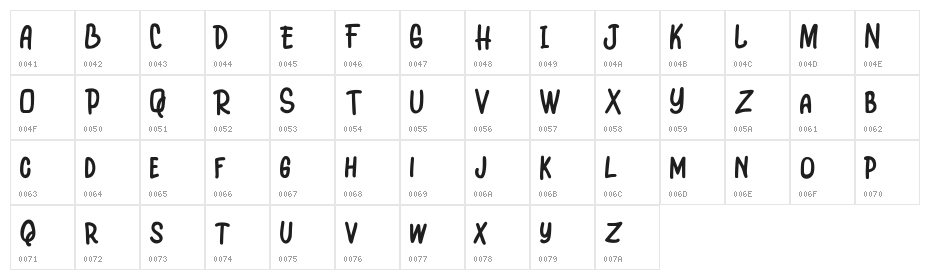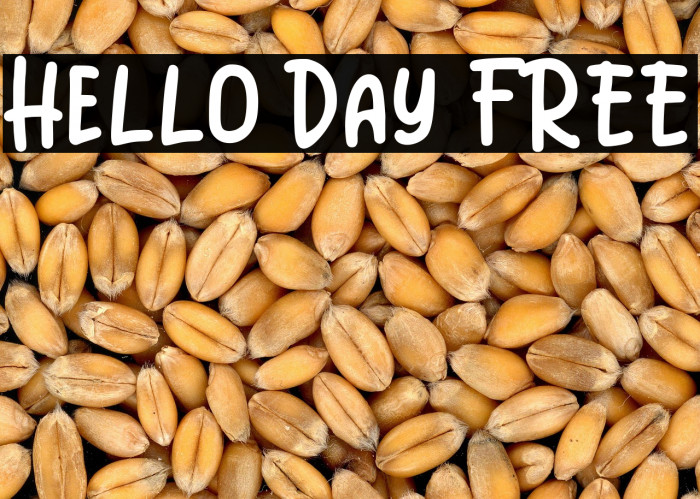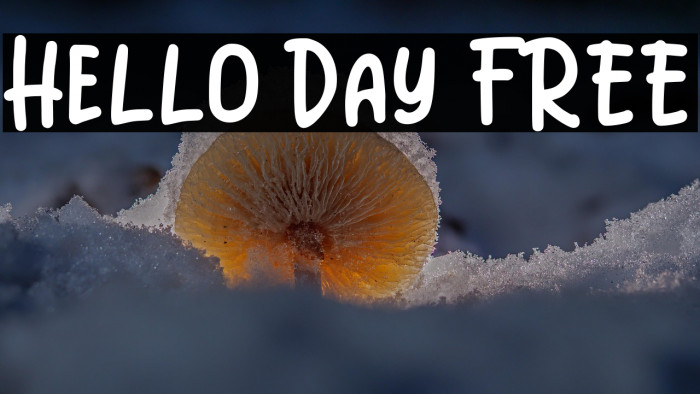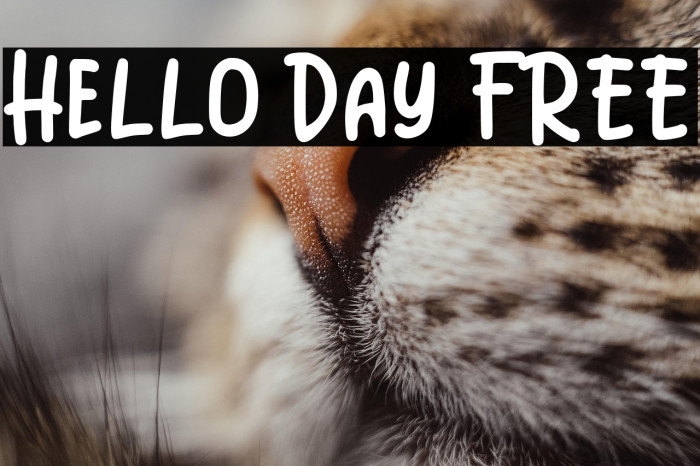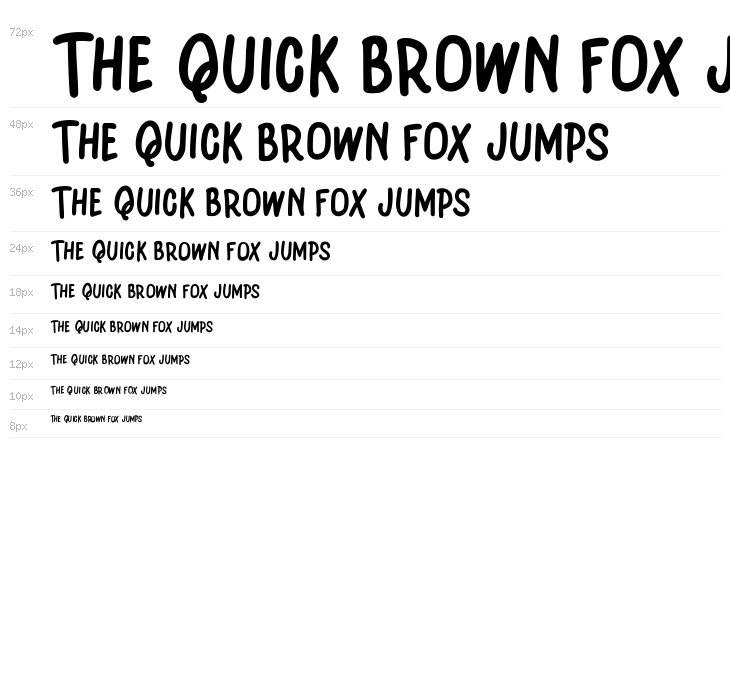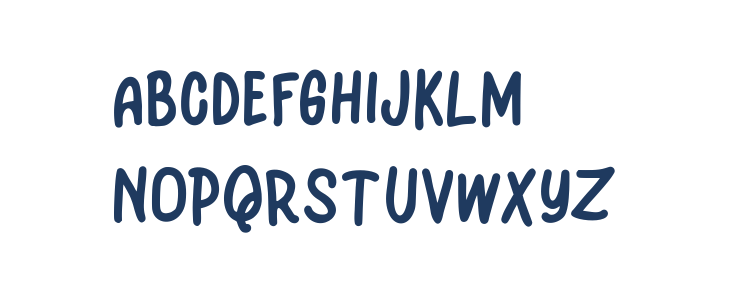
Hello Day FREE Font
Hello Day FREE Description
This font features a playful and casual handwritten style, characterized by its rounded and slightly irregular letterforms. The strokes are bold and consistent, giving it a friendly and approachable appearance. The uppercase letters maintain a uniform height, while the lowercase letters exhibit a slight variation in size, adding to its informal charm. The font's design is clean and legible, making it suitable for a variety of creative projects. Its whimsical nature is enhanced by the smooth curves and lack of sharp edges, contributing to its overall inviting aesthetic.
| Overall Style | Casual, Playful |
| Use Case | Headlines, Logos, Informal Text |
| Proposed Projects | Ideal for greeting cards, children's books, playful branding, and social media graphics. |